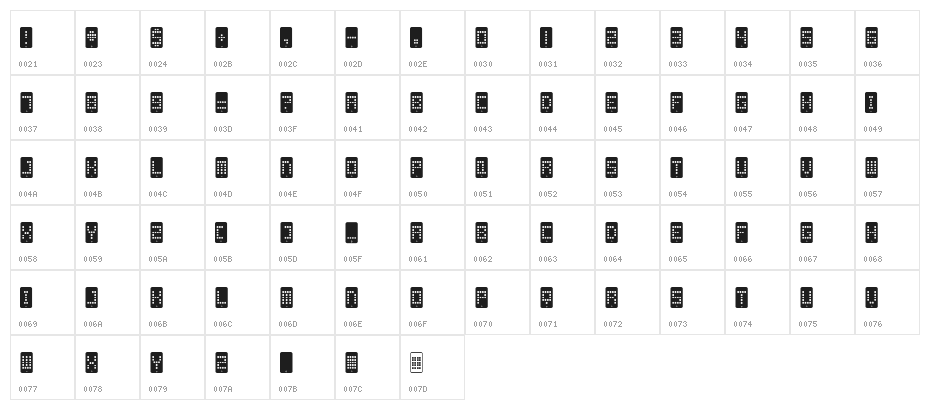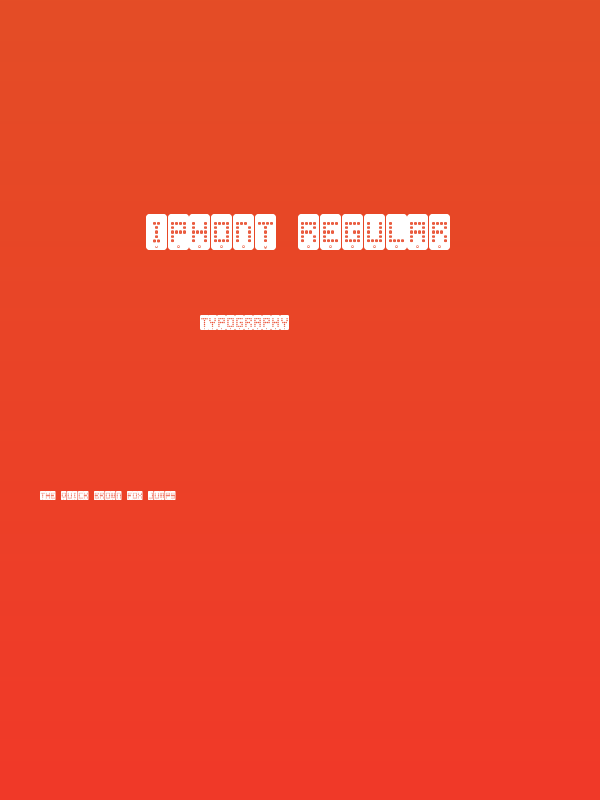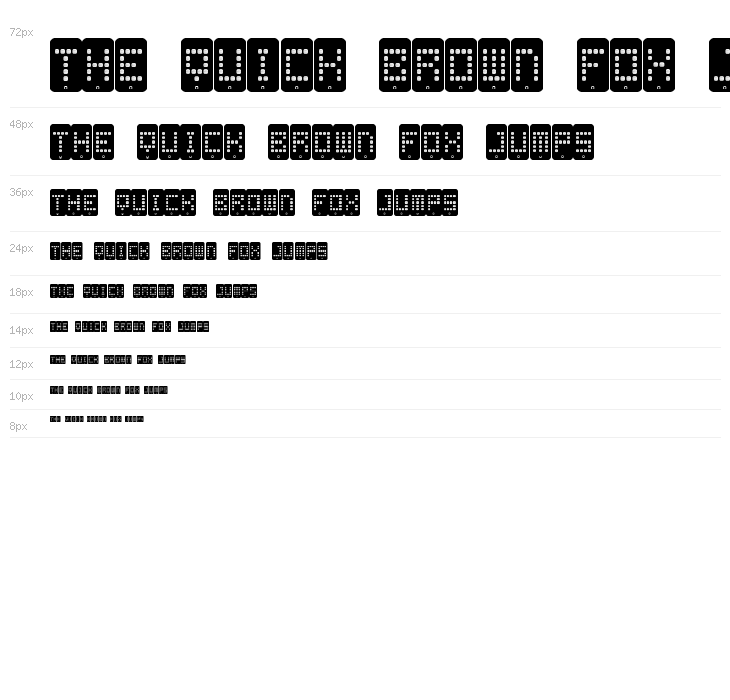
iphont Regular Font
iphont Regular Description
This font features a unique design where each character is composed of a grid of dots, reminiscent of a digital or LED display. The characters are enclosed in rectangular blocks, giving them a bold and structured appearance. The use of dots creates a pixelated effect, which adds a modern and technological feel to the font. The uniformity of the dot pattern across all characters ensures consistency, while the rectangular background provides a strong contrast, making the characters stand out prominently.
| Use Case | Headlines, Logos, Digital Displays |
| Proposed Projects | This font is perfect for digital displays, tech-themed posters, futuristic branding, and any project that requires a modern, digital aesthetic. |